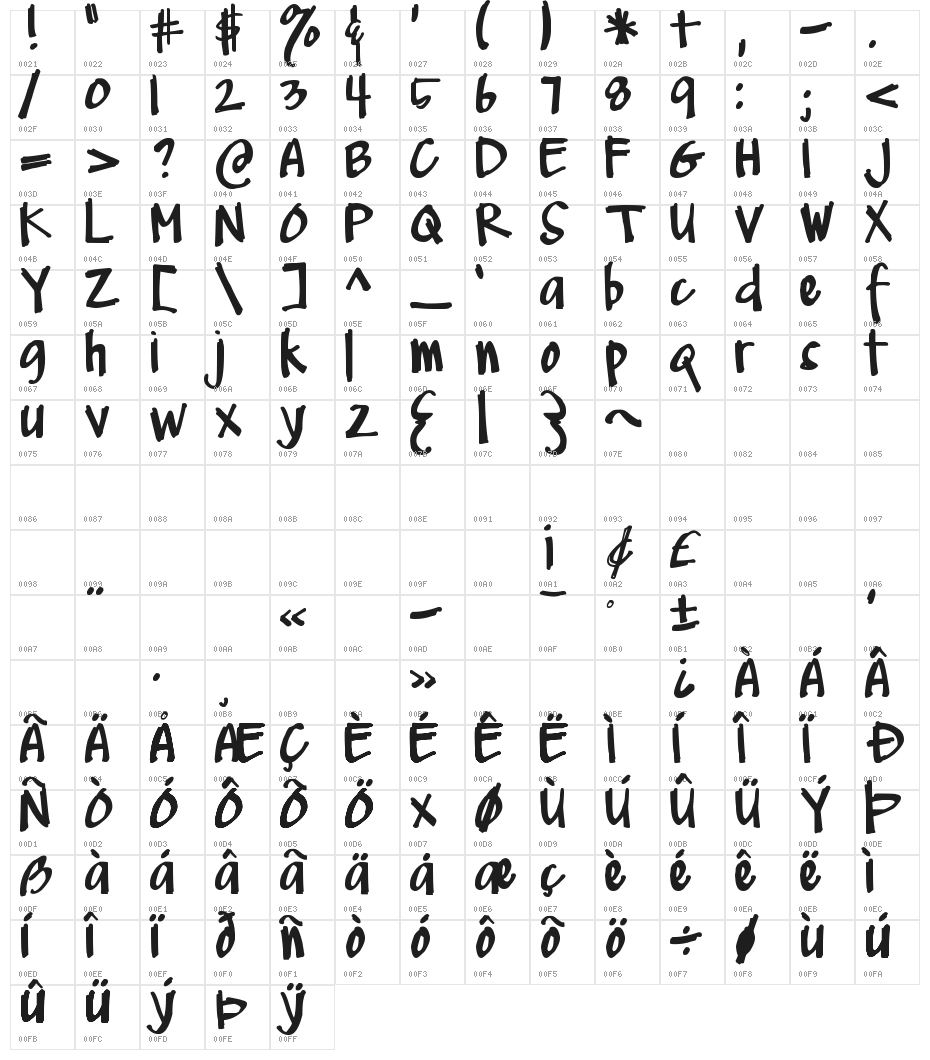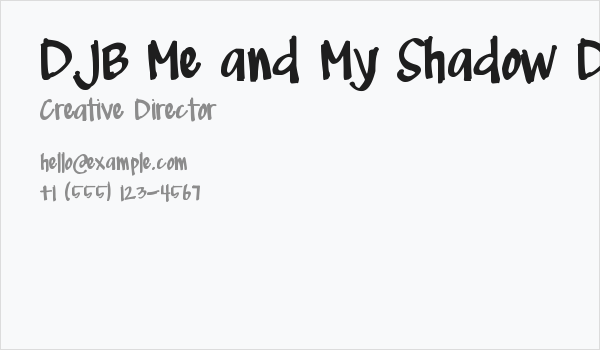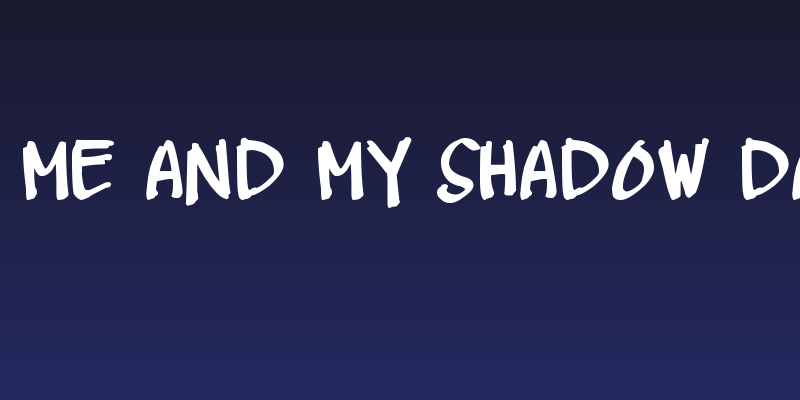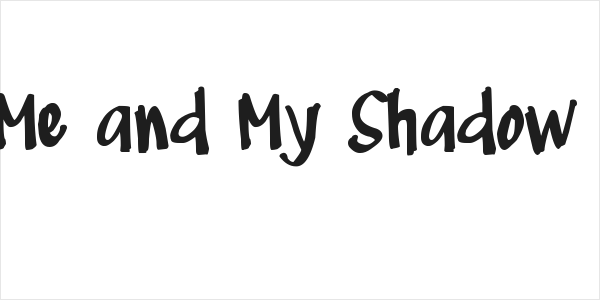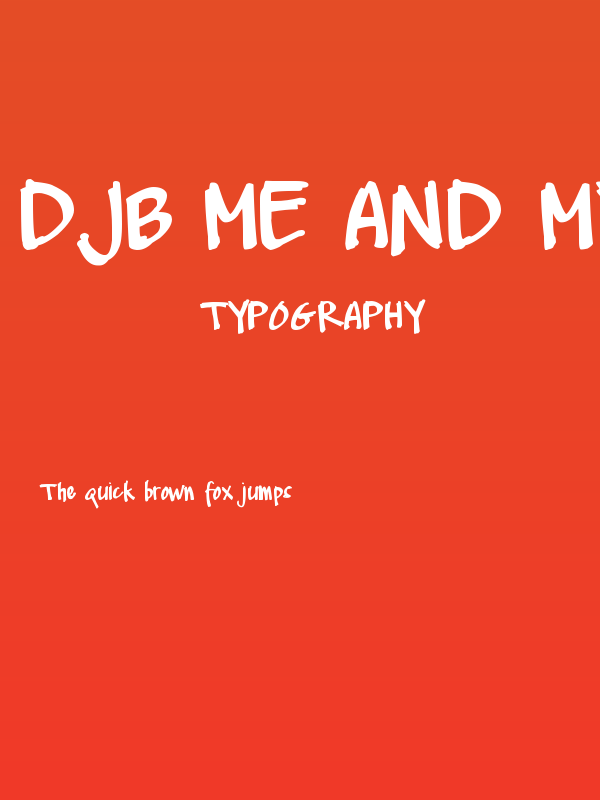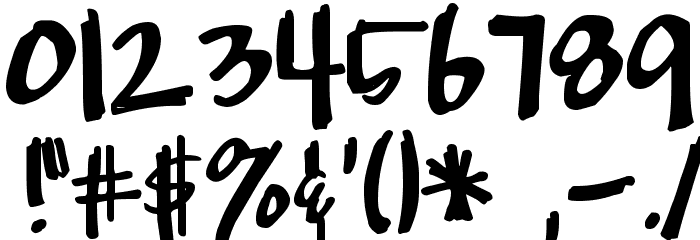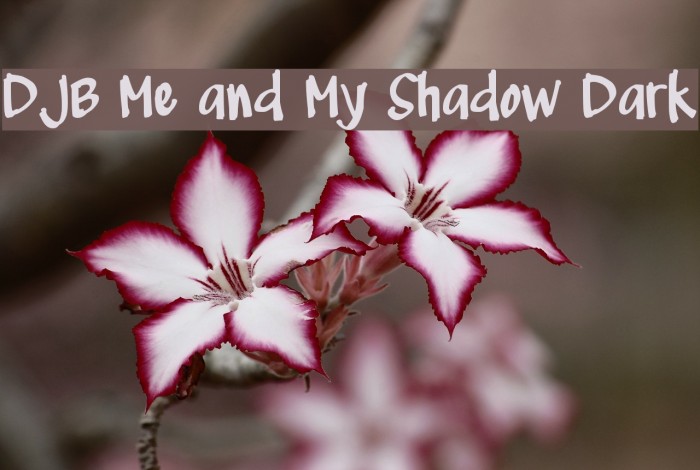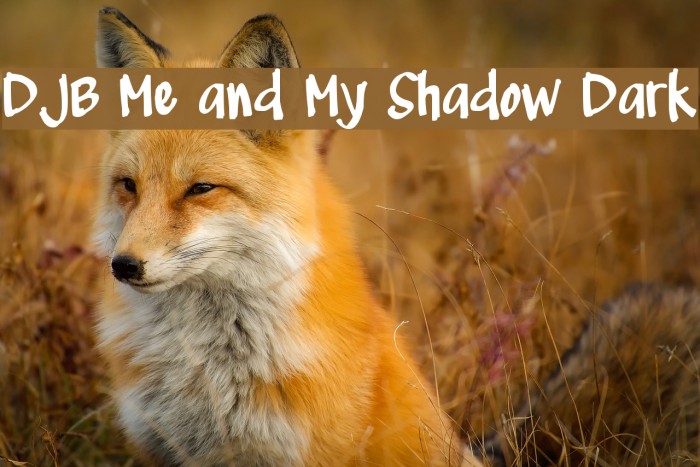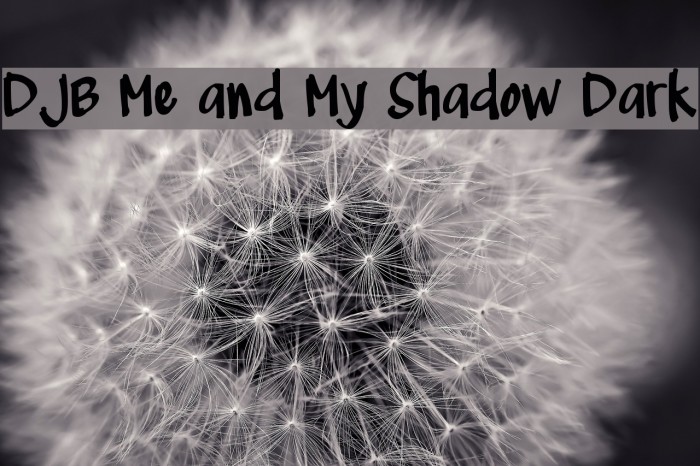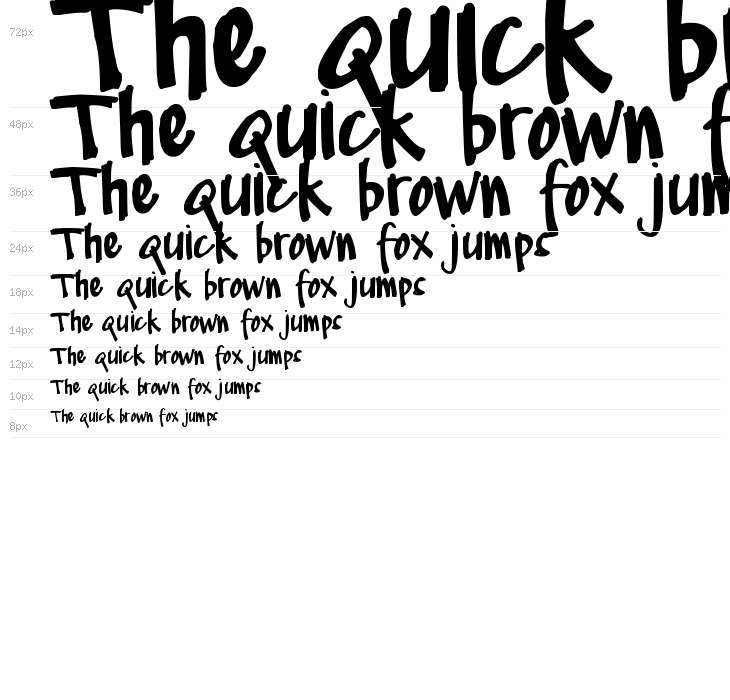
DJB Me and My Shadow Dark Font
DJB Me and My Shadow Dark Description
| Overall Style | Playful, Casual |
| Proposed Projects | Ideal for greeting cards, children's books, playful branding, and social media graphics. |